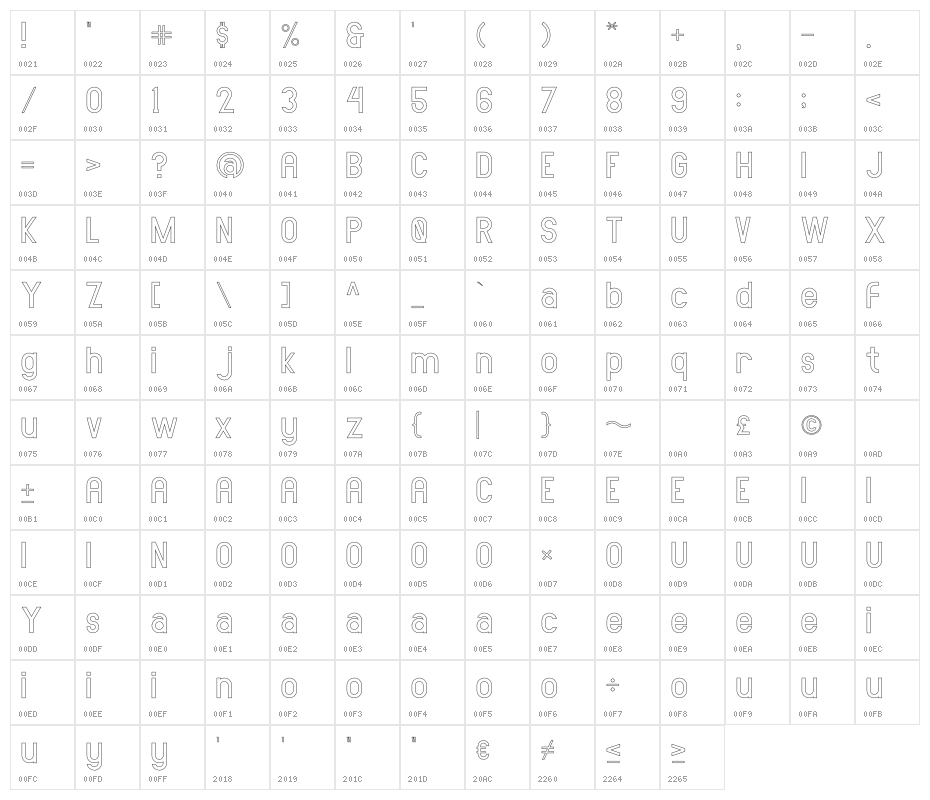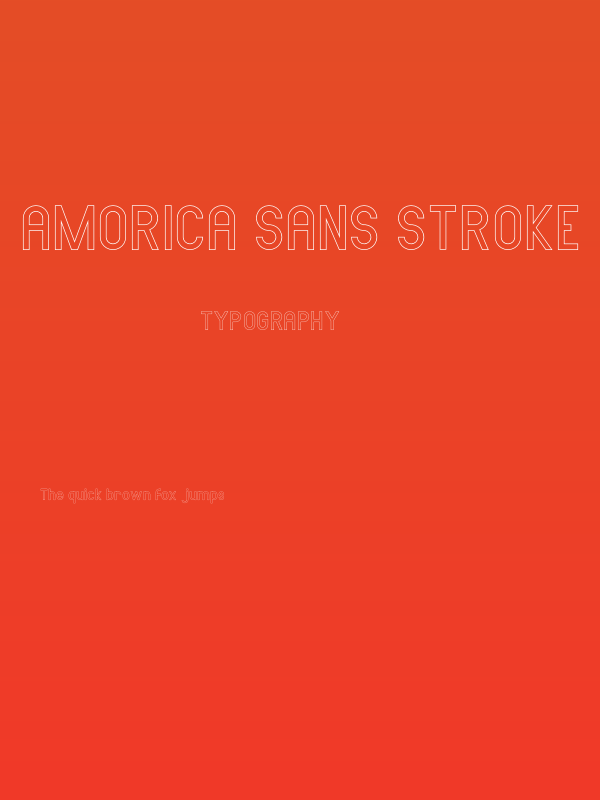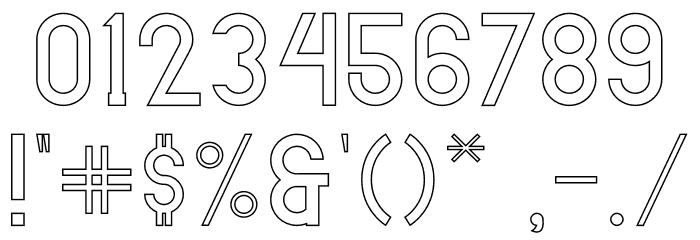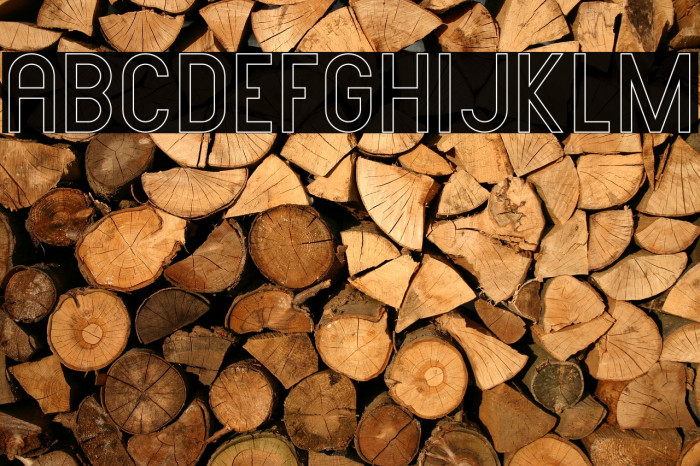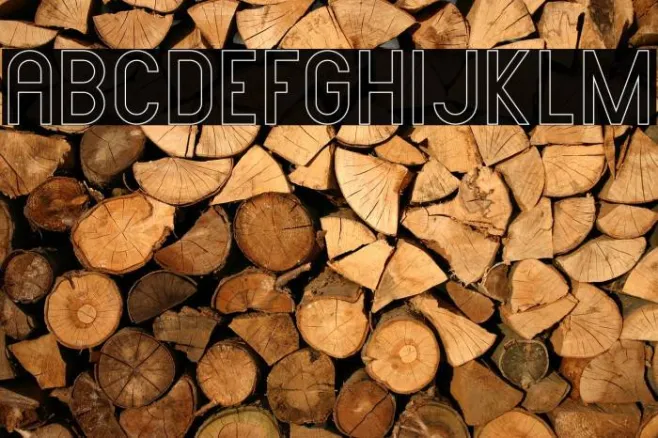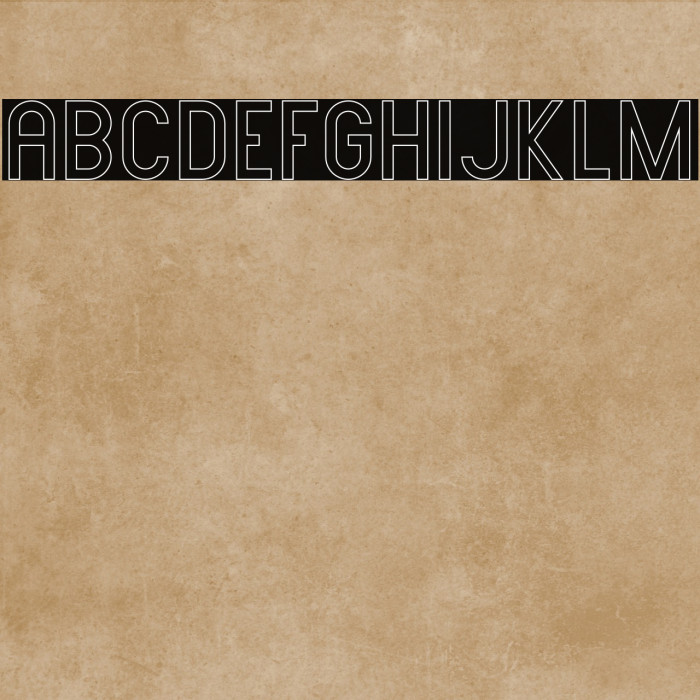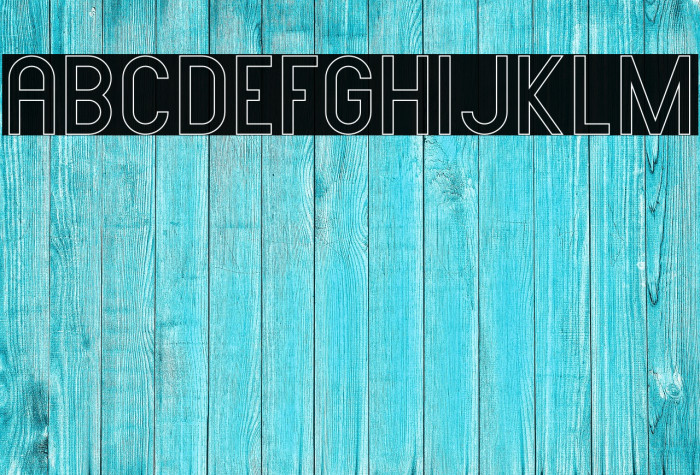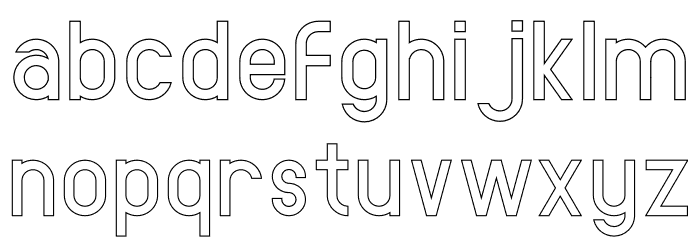
AMORICA SANS Stroke Font
AMORICA SANS Stroke Description
This font features a clean and modern sans-serif style with a distinct outline design. The characters are constructed with a uniform stroke width, giving it a consistent and structured appearance. The uppercase and lowercase letters maintain a geometric form, providing a sense of balance and harmony. The numerals and special characters are designed to complement the alphabet, ensuring readability and aesthetic appeal. The overall look is minimalistic yet impactful, making it suitable for various design applications.
| Proposed Projects | Ideal for branding, headlines, posters, and digital media where a modern and clean look is desired. |